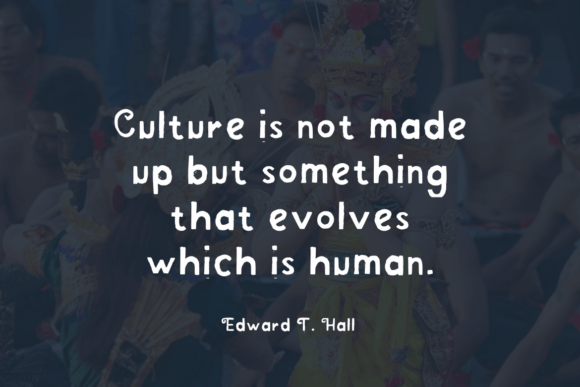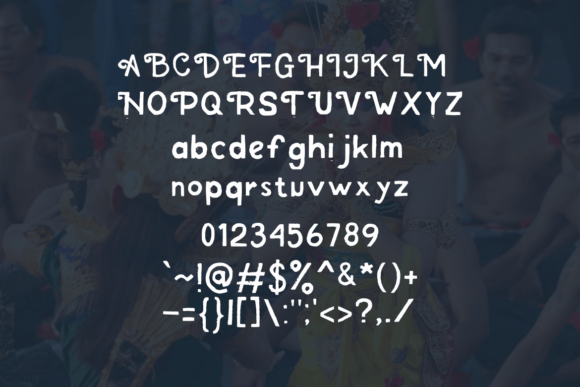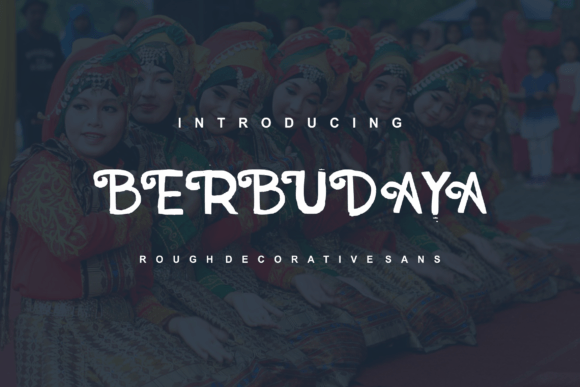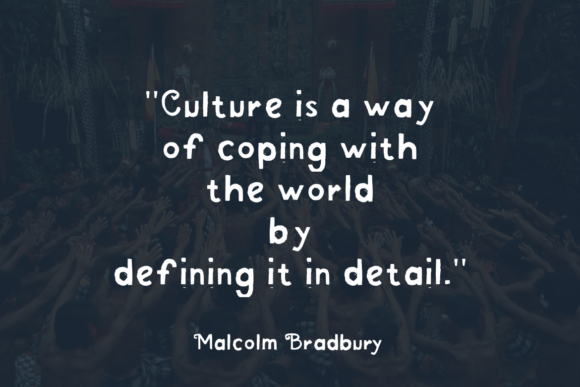
Berbudaya
Berbudaya: A Rough and Original Slab Serif Font
Berbudaya is a rough slab serif font featuring original design touches. This cool typeface brings distinctive character to various creative applications, from titles and posters to websites and packaging.
Key Features of Berbudaya
• Rough Design: Offers textured, original letterforms.
• Cool Style: Brings fresh character to designs.
• Versatile Appeal: Adapts well to numerous applications.
• Strong Presence: Creates engaging visual impact.
Best Uses for Berbudaya
Thanks to its versatile characteristics, Berbudaya works especially well for:
When using Berbudaya in your designs, keep these tips in mind:
• Try it for headlines to showcase its rough style.
• Use its original character for distinctive projects.
• Take advantage of its cool appeal for modern designs.
• Let its versatility enhance various applications.
To sum up, Berbudaya is an excellent choice for designers seeking a rough and original slab serif font. Its versatility makes it perfect for various creative projects. Whether you’re creating titles, designing posters, or developing websites, Berbudaya offers the perfect blend of roughness and originality.
Furthermore, Berbudaya’s distinctive design allows it to shine in contexts where both texture and impact are key. From magazine layouts to packaging designs, this font can elevate your projects with its cool style. Also, its rough yet readable appearance works particularly well in designs that aim to make a strong, original impact.
In conclusion, Berbudaya truly captures the essence of original design in slab serif typography. Its ability to work across different applications shows how well it can serve various creative needs. Therefore, for those wanting to add a touch of rough sophistication to their work, Berbudaya can enhance any design with its distinctive style. Ultimately, it’s perfect for designers aiming to make a cool, original impact across creative projects.